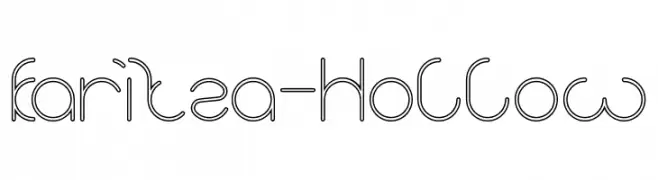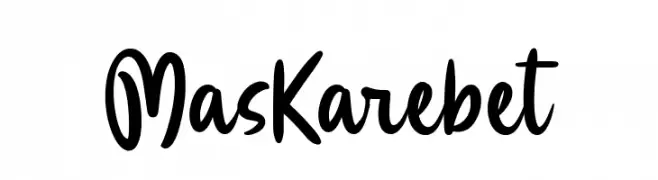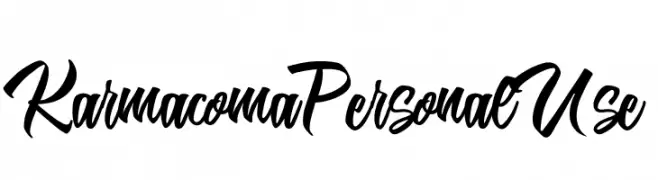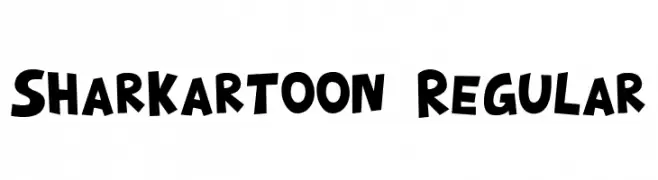
A modern, hollow outline font with smooth curves and a playful yet sophisticated style.
A bold, hand-drawn font with a brush-like texture and dynamic style.
A playful and energetic script font with a handwritten style.
A bold, italic script font with a fluid, handwritten style.
A decorative swash font with elegant, flowing strokes and intricate curves.
A bold, playful script font with a handwritten feel.
A bold, playful script font with a handwritten style.
A dynamic and expressive script font with fluid, cursive strokes and elegant curves.
A bold, cartoonish font with playful and exaggerated curves.